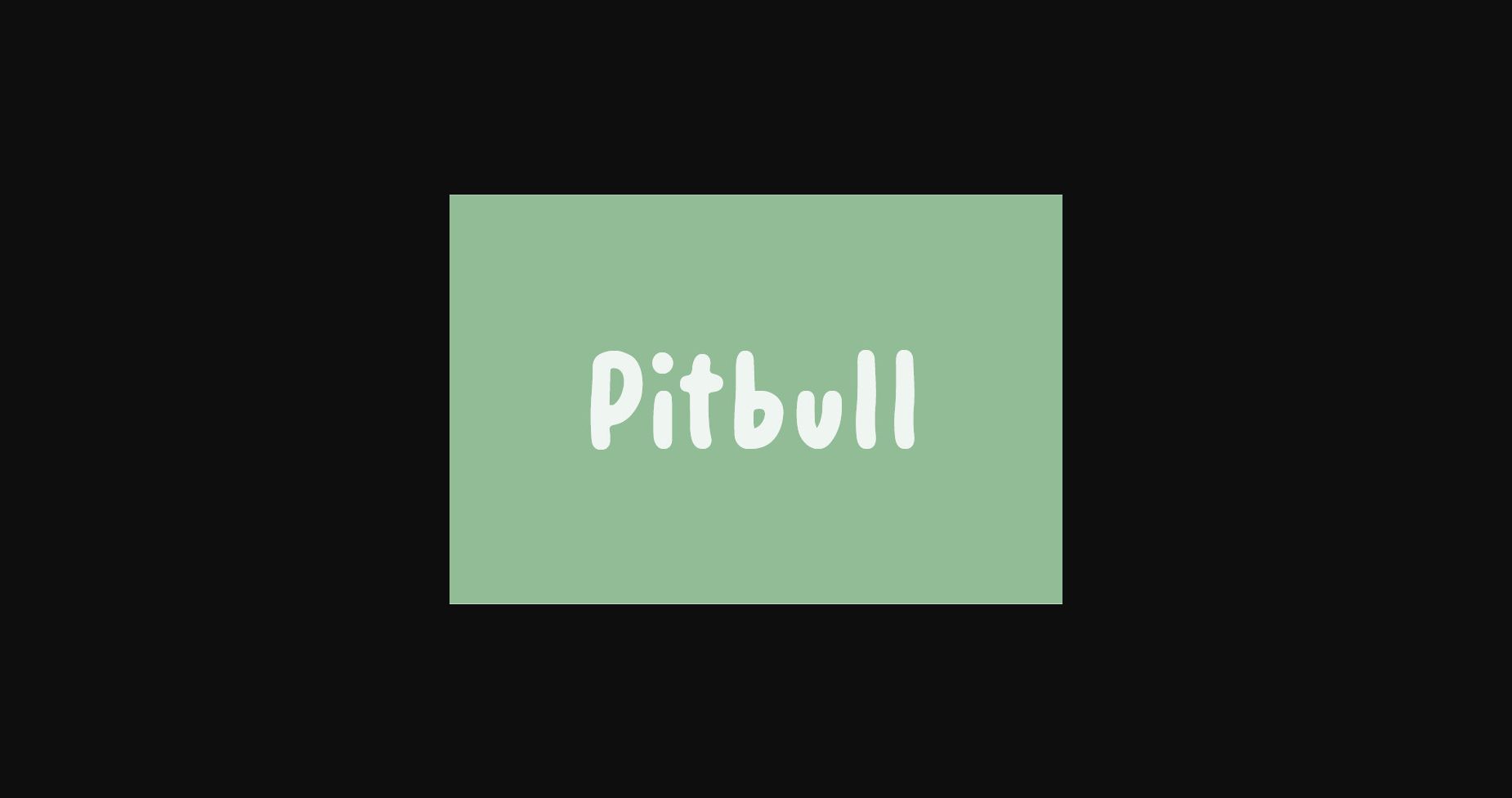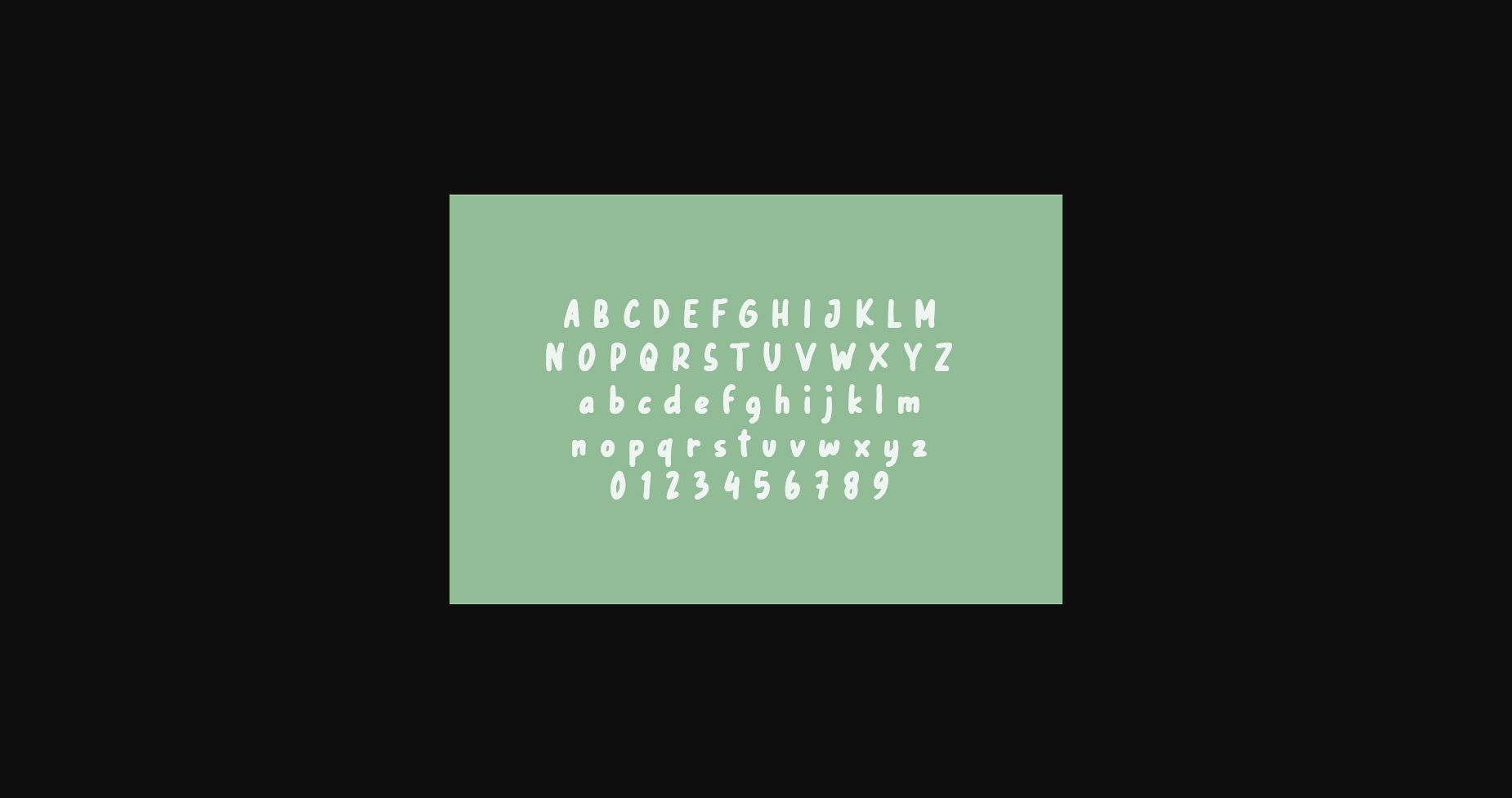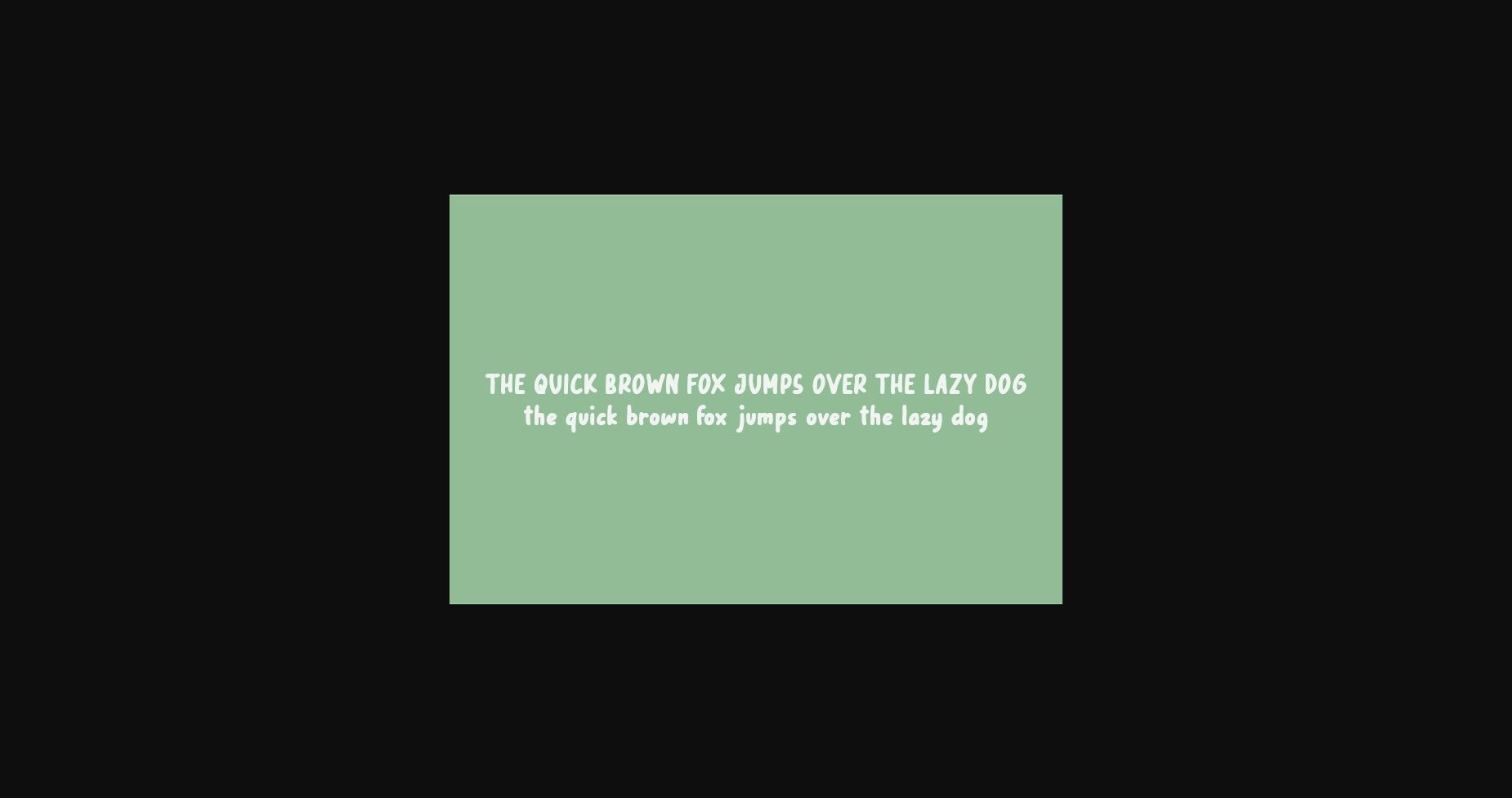
About Pitbull Font
Pitbull is a friendly and well-rounded sans serif font, suitable for various creative designs! Use it for logos, branding, name tags, book covers, posters, banners, apparel designs, and so much more!